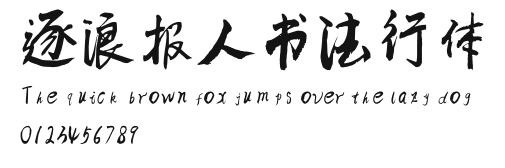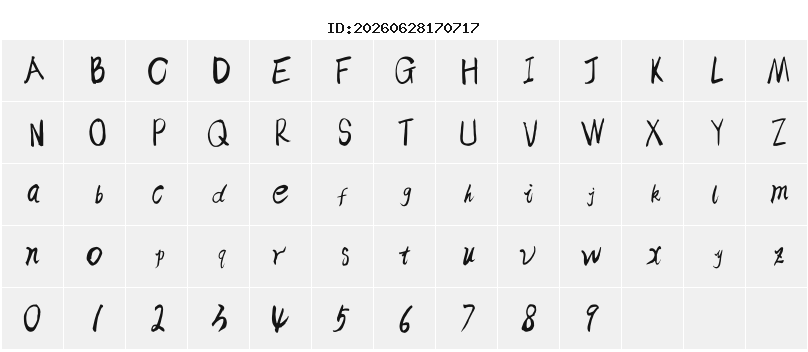
逐浪报人书法行体 Preview
• Font Name: 逐浪报人书法行体
• Font Style: 常规
• Font ID: 逐浪报人书法行体
• Full Font Name: 逐浪报人书法行体
• Version: Version1.00 20160510
• PostScript Name: ZoomlaBaoren-A102
• Character Count: 8125
• Designer: hx008Com
• Manufacturer: Shanghai ZoomlaCMS co.,LTD
About 逐浪报人书法行体.otf